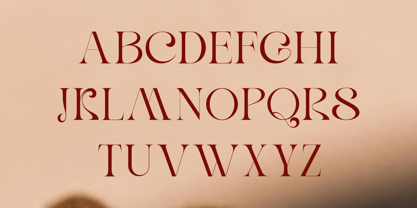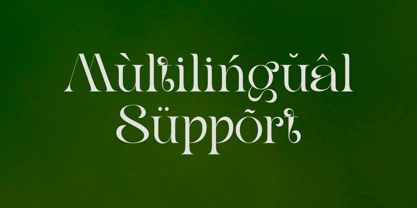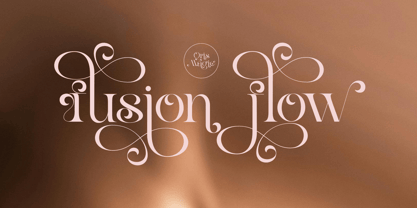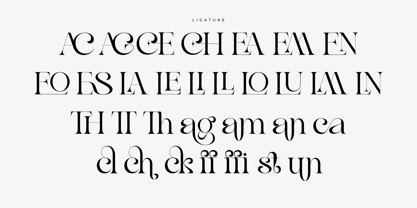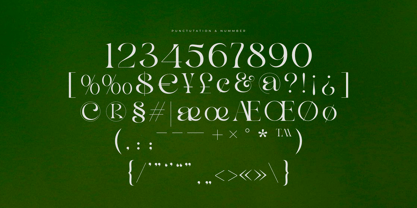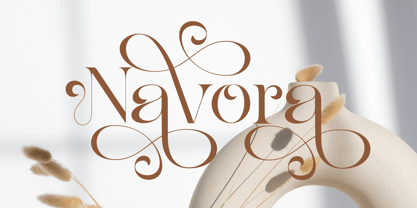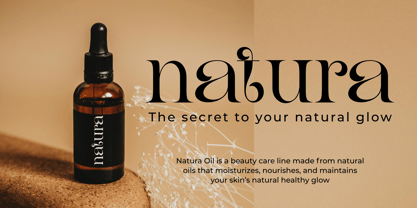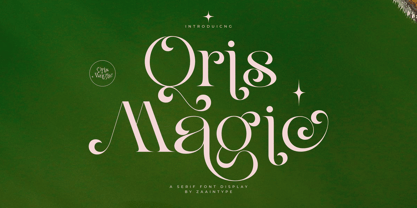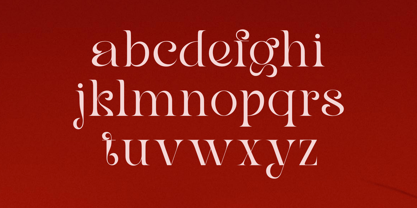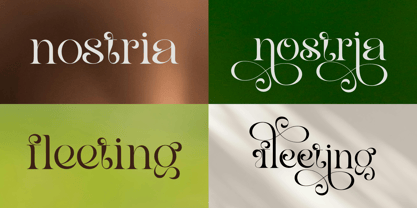
Qris Magic
von Zaain Type
Die Schriftfamilie Qris Magic wurde von Ju Naen entworfen und von Zaain Type veröffentlicht. Qris Magic enthält 2 Stile und Familienpaketoptionen.
Qris Magic is a modern serif font with an elegant and artistic touch. Combining sharp lines with smooth curves, this font is designed to bring a luxurious yet magical feel to every design. Its letterforms highlight the balance between classic firmness and contemporary charm, making it the perfect choice for branding, editorials, invitations, or any creative project that needs a unique and sophisticated character